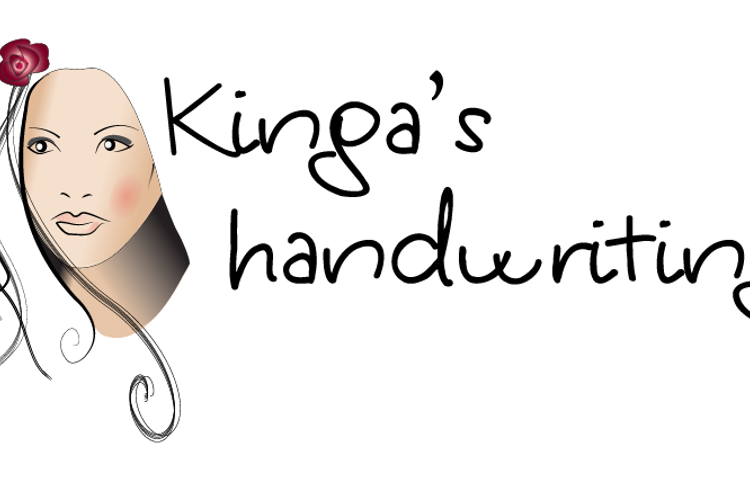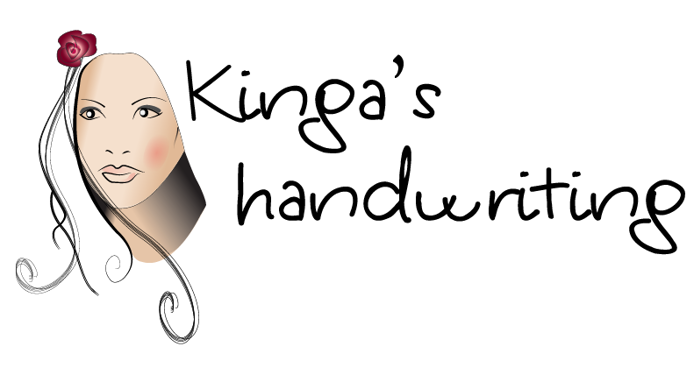
Kinga's Handwriting Font
by Roland Huse Design
Handwriting
About Kinga's Handwriting Font
My sister's handwriting. Each character has been designed and created as a vector, no scan!